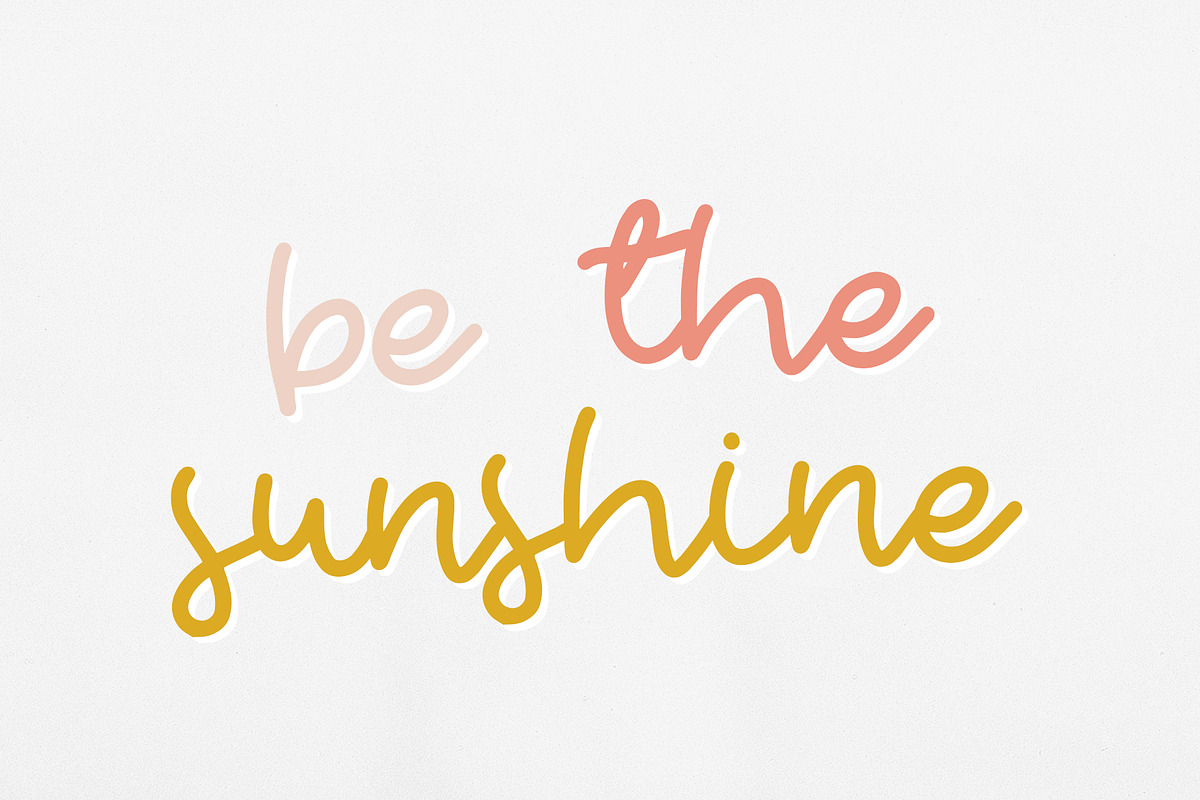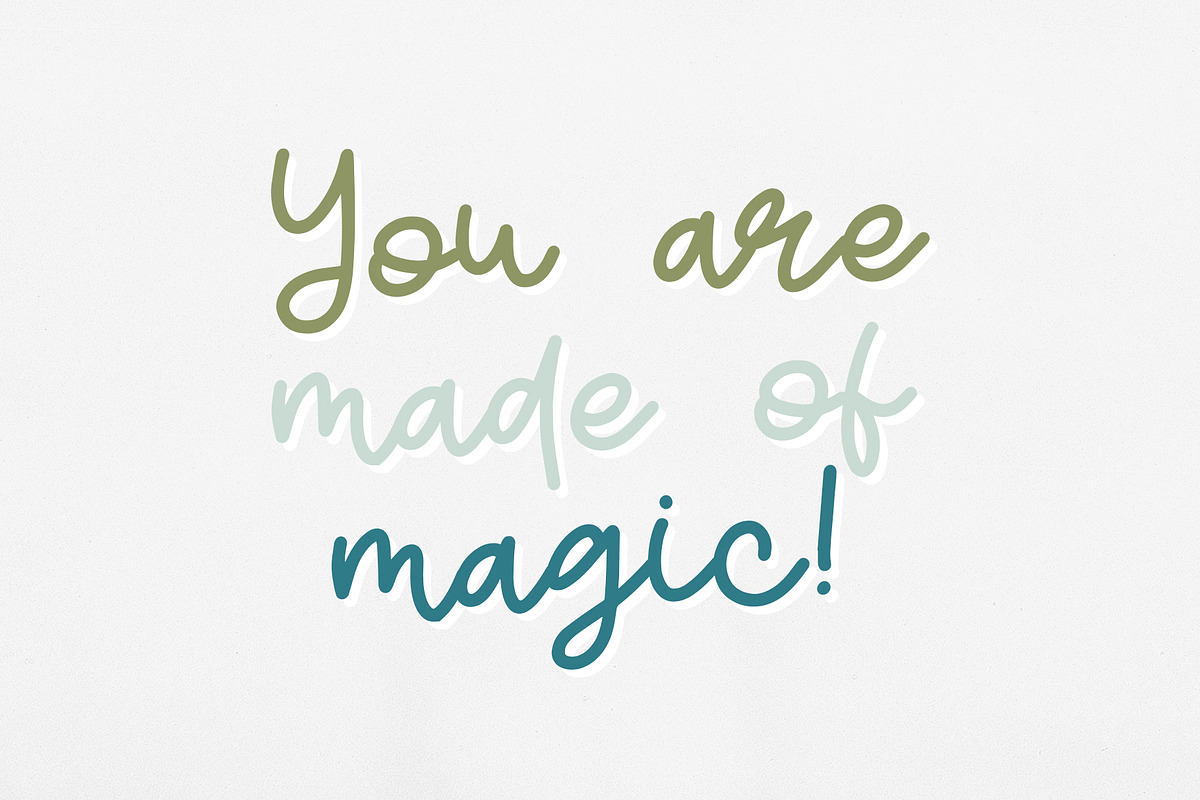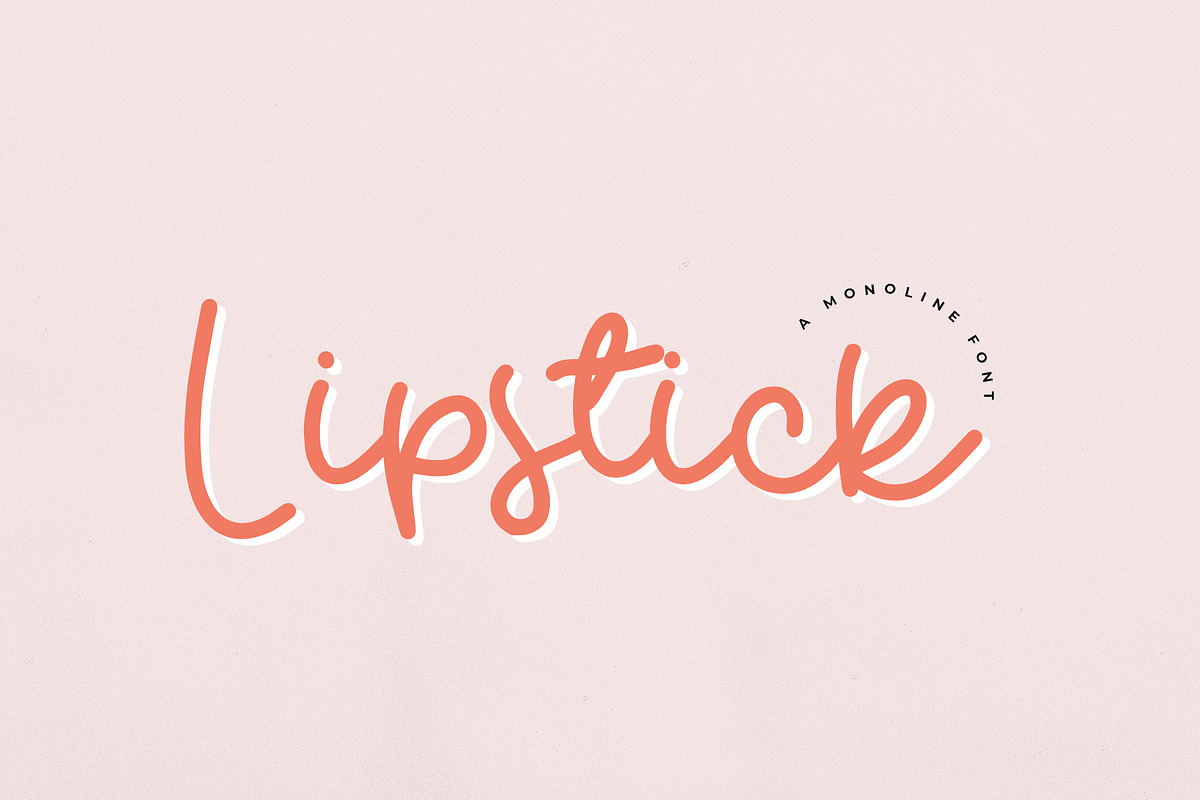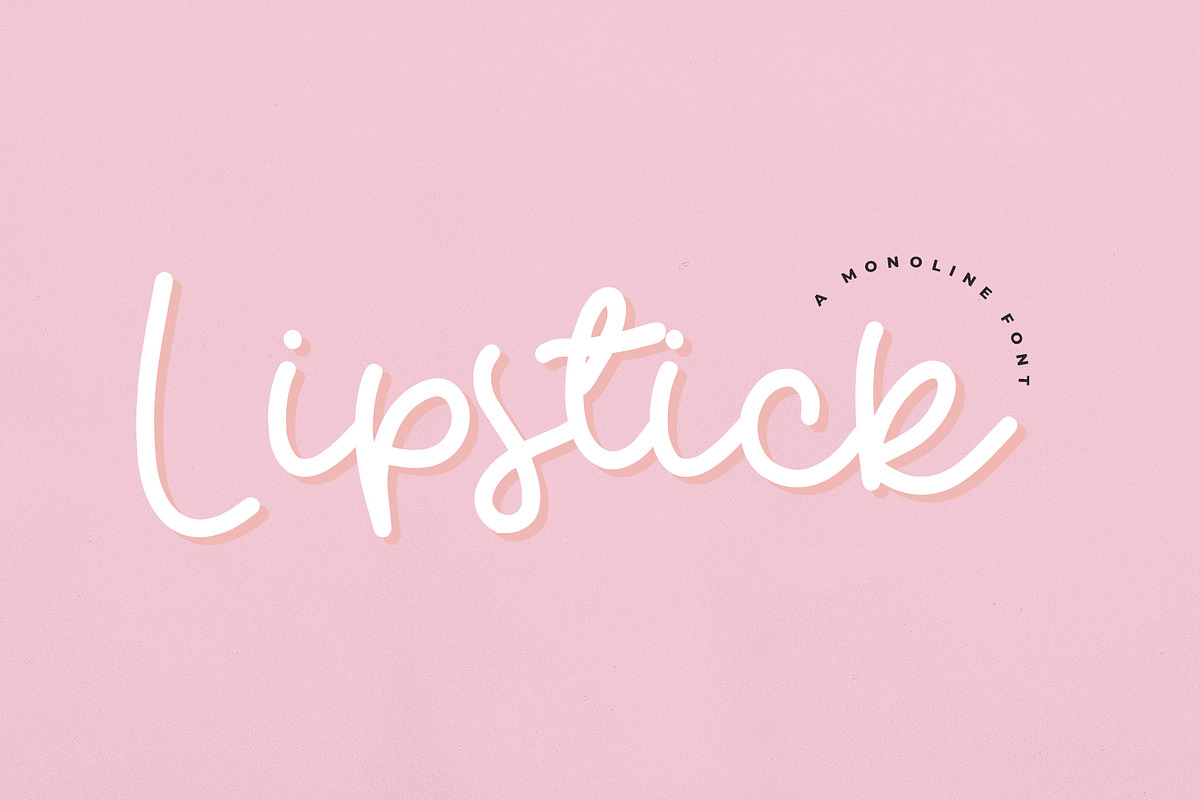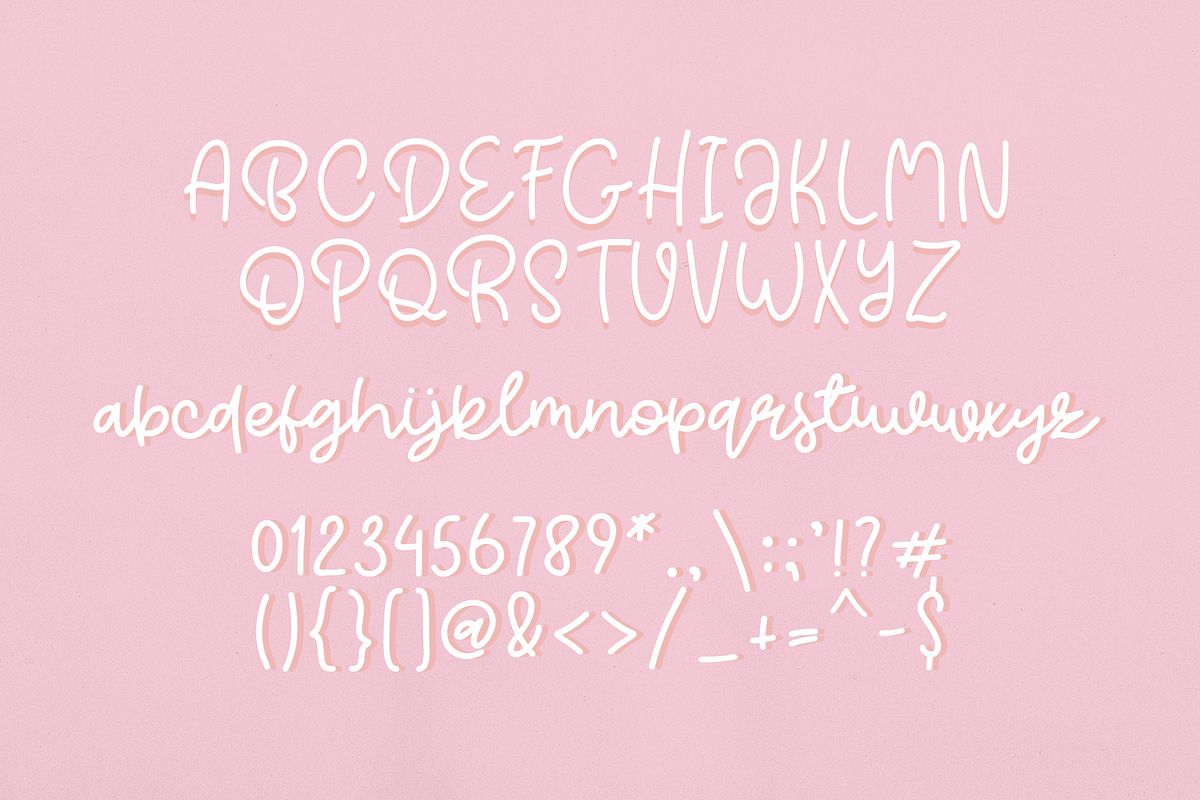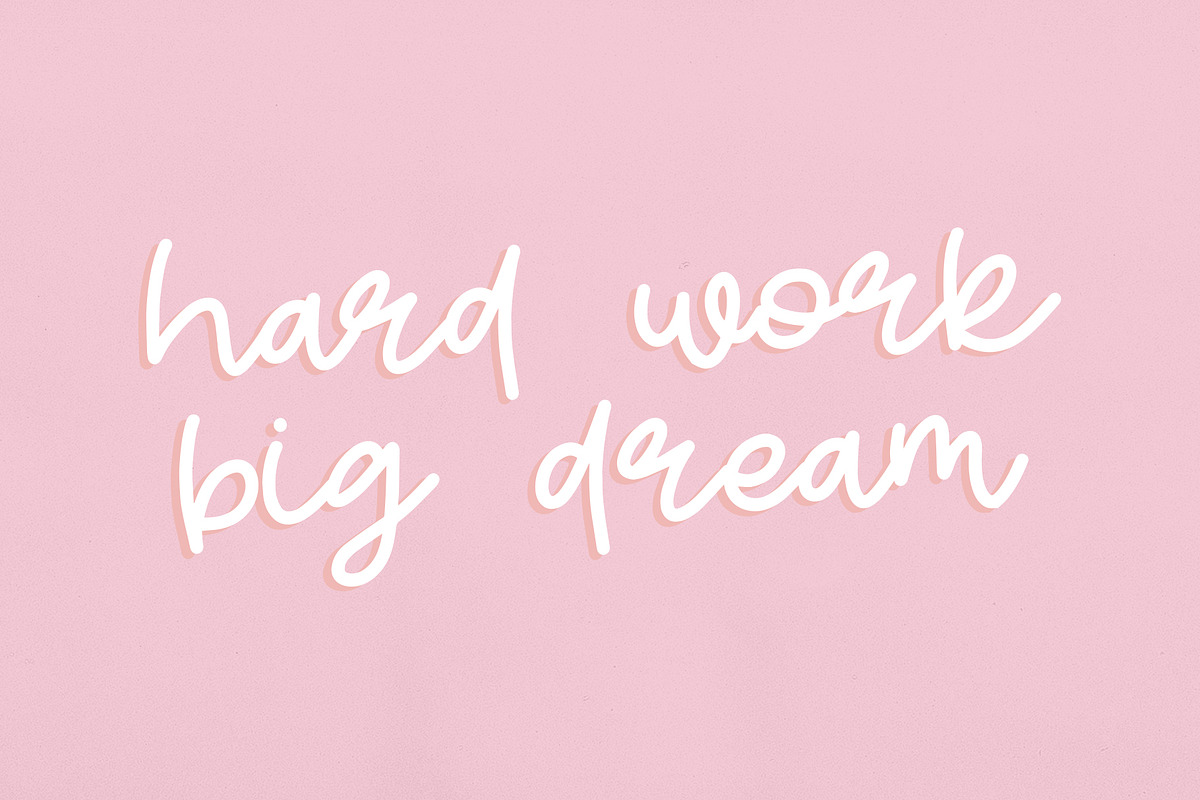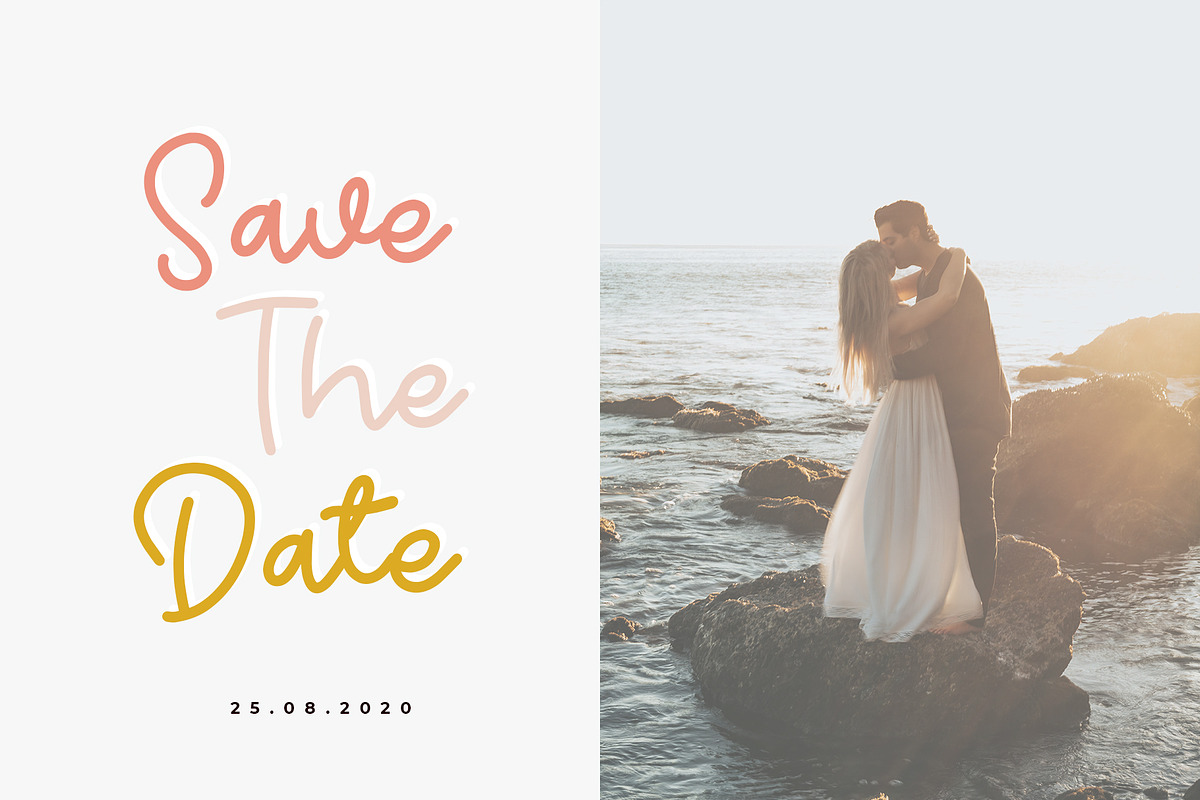
Lipstick
A Signature monoline font Lipstick
This font includes all upper and lower case standard character, punctuation, numerals, ligatures!
You can create perfect and unique design of your wedding postcard, branding, invitations, quotes, prints, and many more!